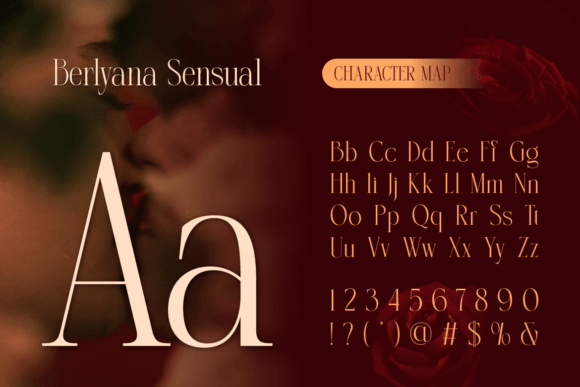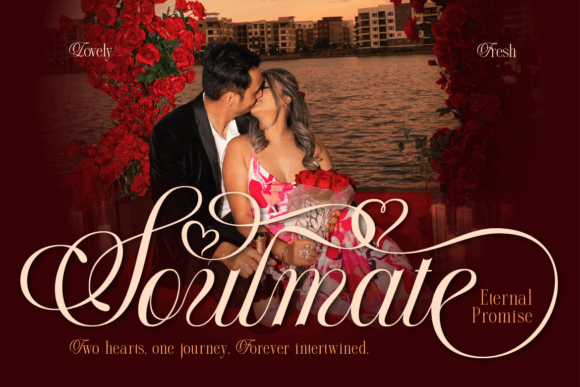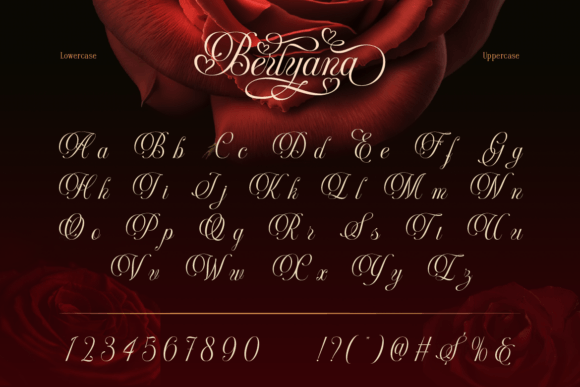
Berlyana Sensual Font
Introducing Berlyana Sensual—a harmonious blend of romance and elegance crafted from script and serif styles. This exquisite duo font marries the graceful allure of script with a sense of love and the timeless sophistication of classic serif, enhanced with a touch of nostalgia. Featuring alternates that evoke sensuality, glamour, and romance, this font is designed to captivate.